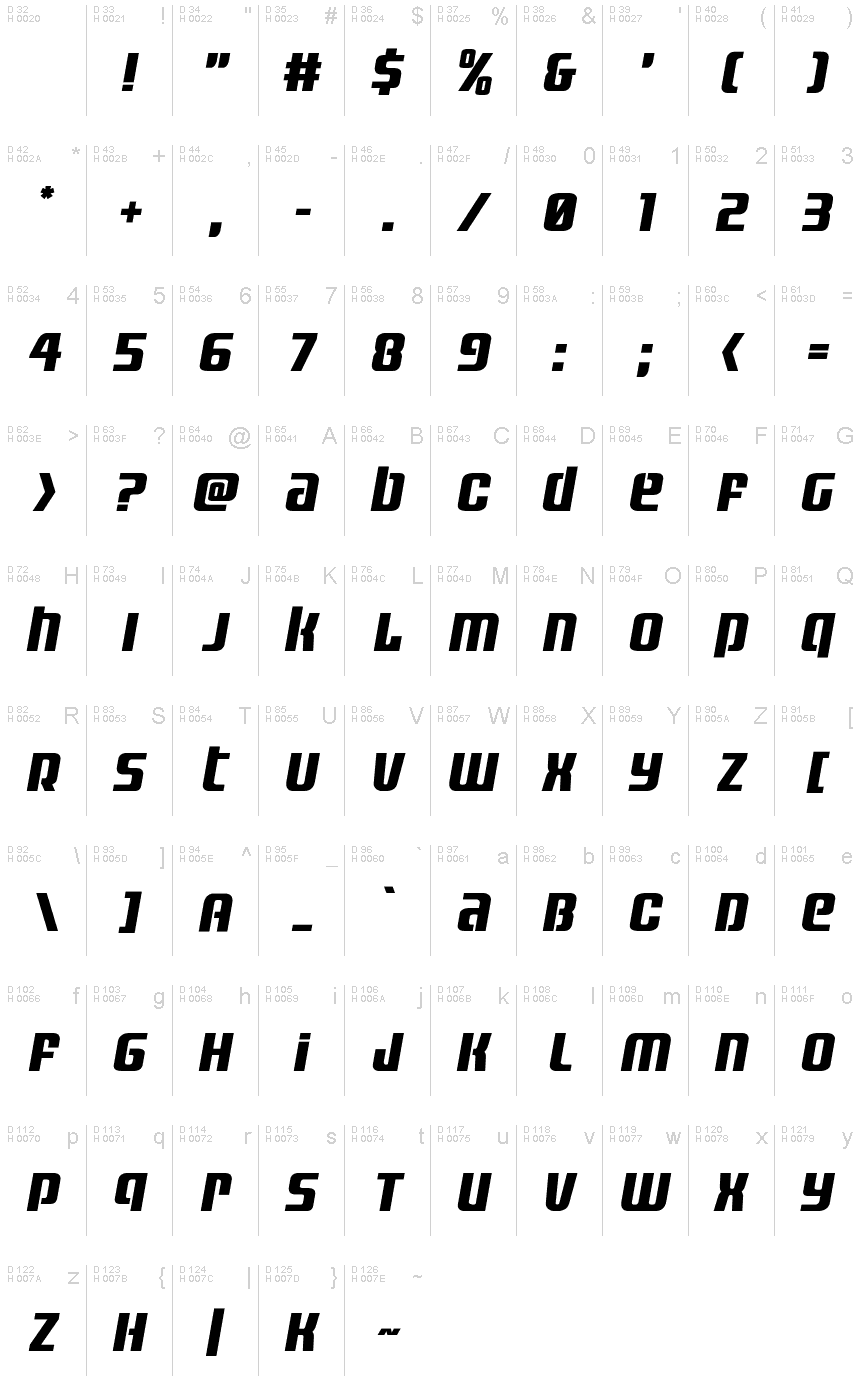
Vanguardian Compact Italic
The Vanguardian Compact Italic font is a display font designed by Daniel Zadorozny with a futuristic style and bold, condensed letterforms. Its sleek and dynamic look gives it a modern edge, making it the perfect choice for projects that require an ultra-contemporary feel. With its wide range of uses and applications, this typeface can be used to create eye-catching designs such as logos, headlines or posters. Its boldness also makes it ideal for titles in video games or other digital media. Use Vanguardian Compact Italic to make an impactful statement!